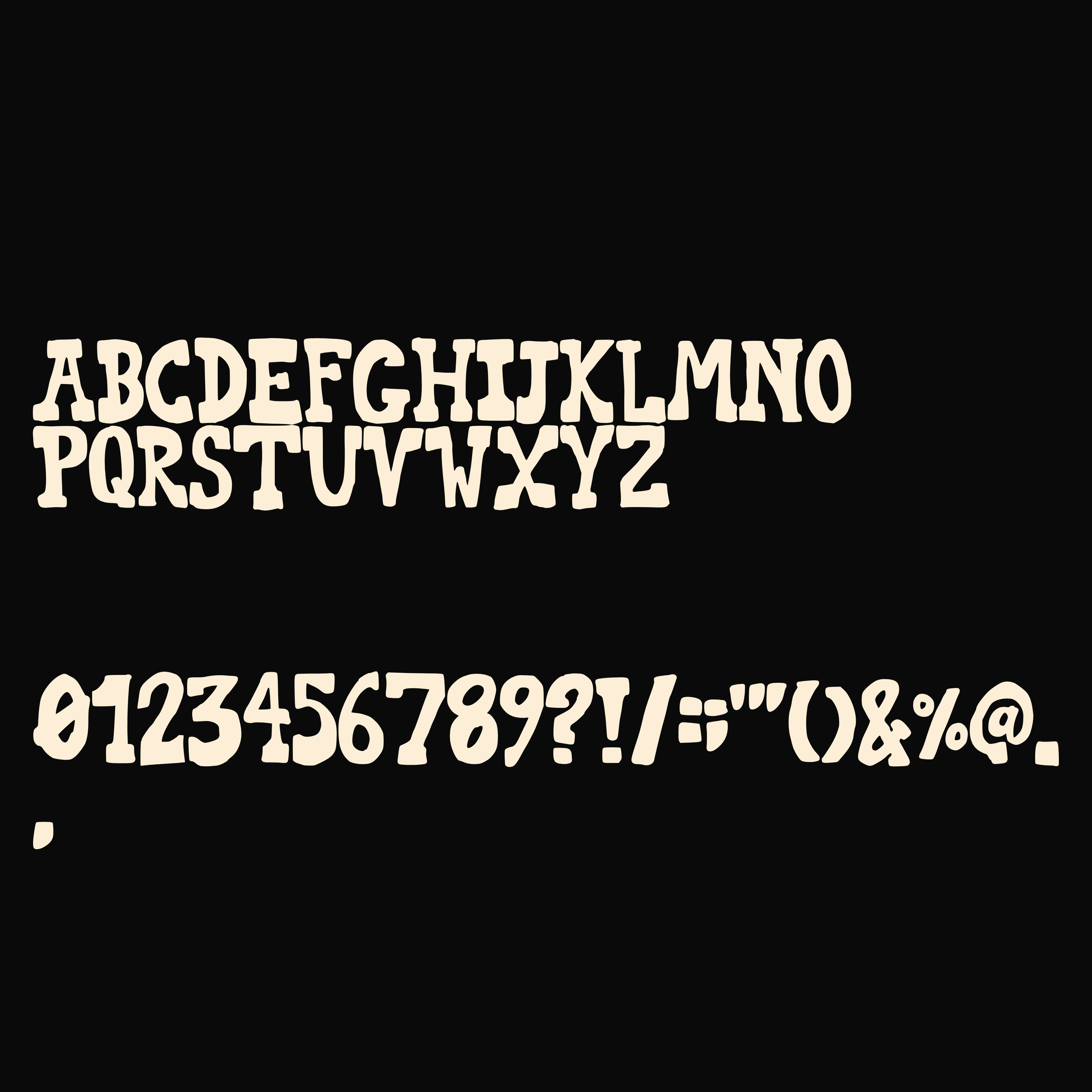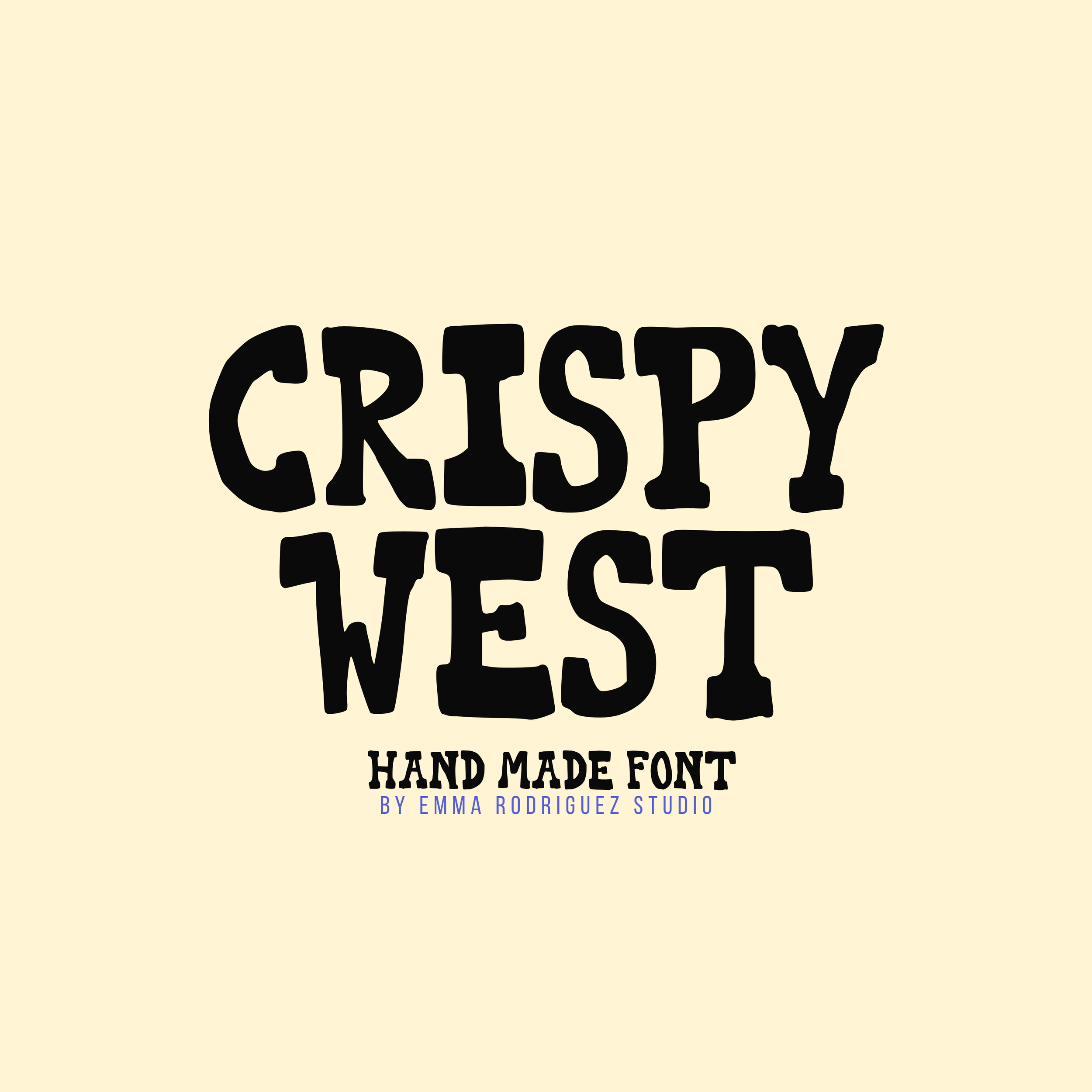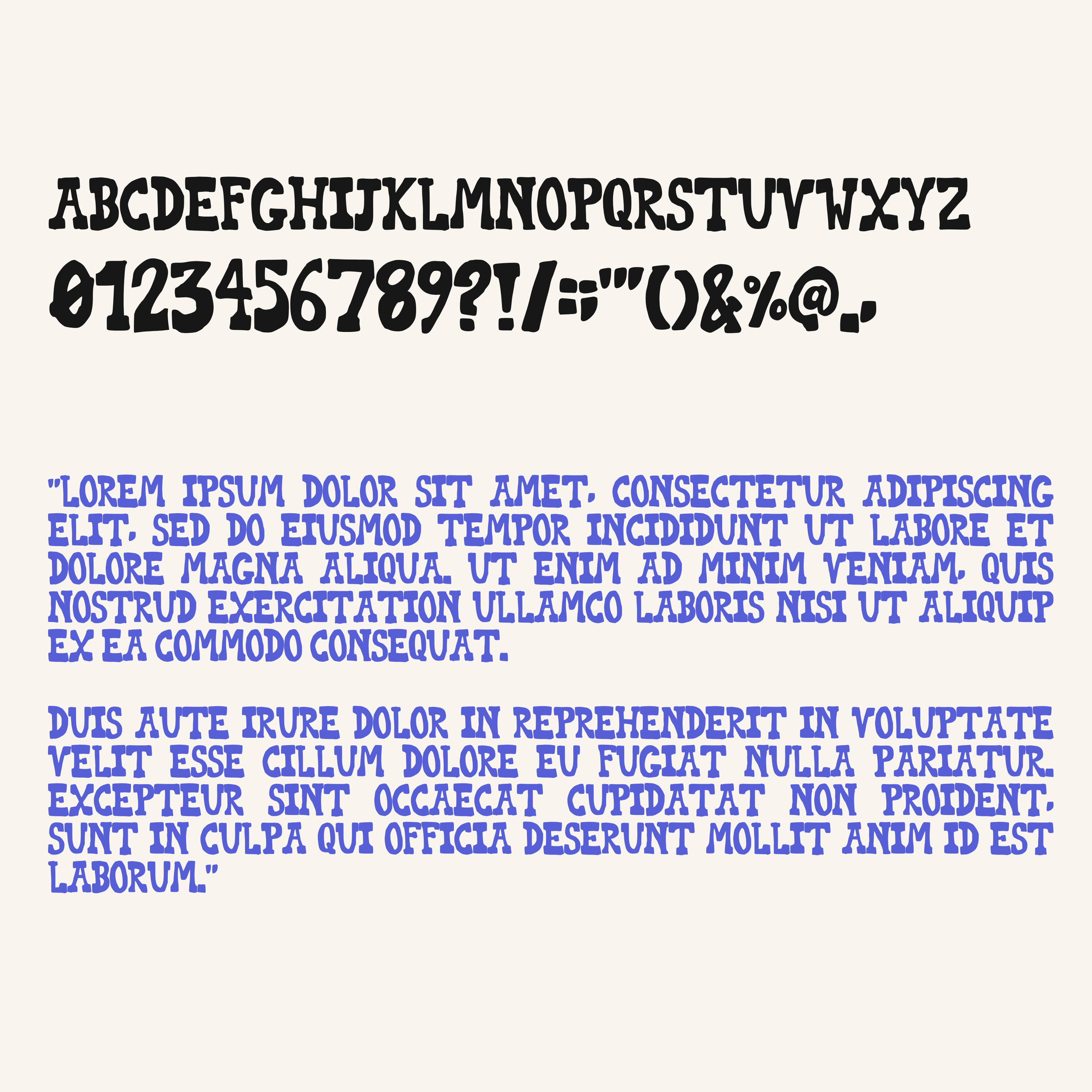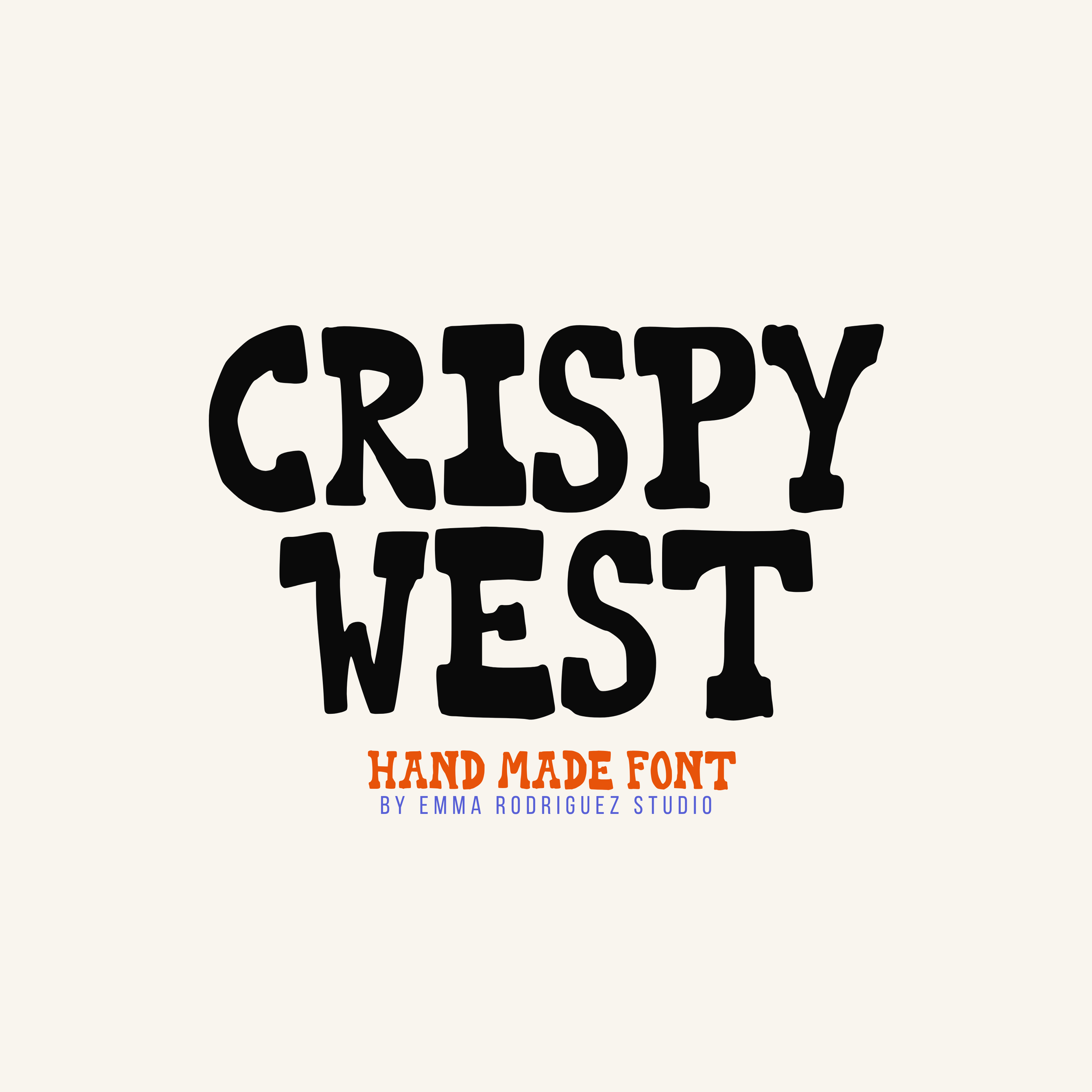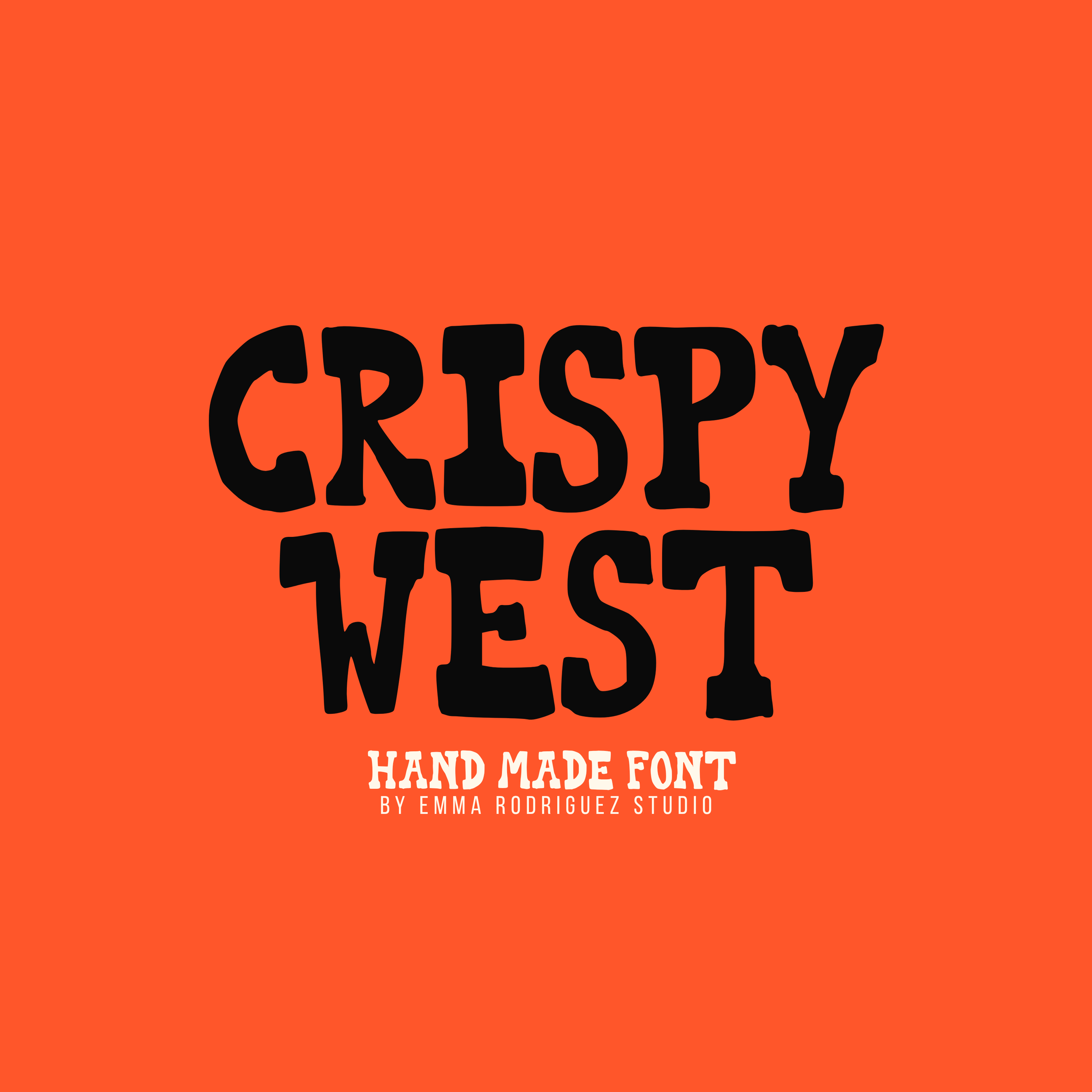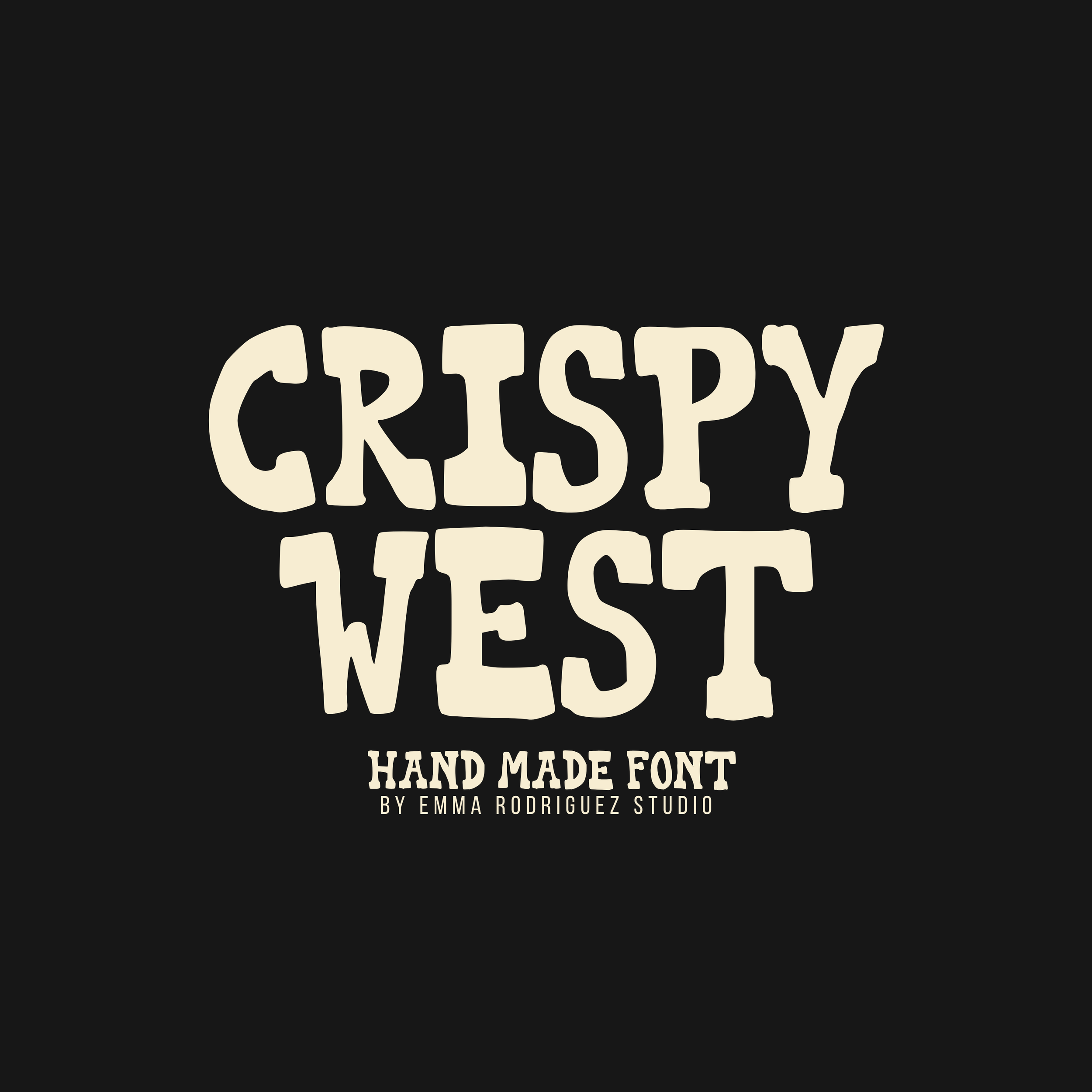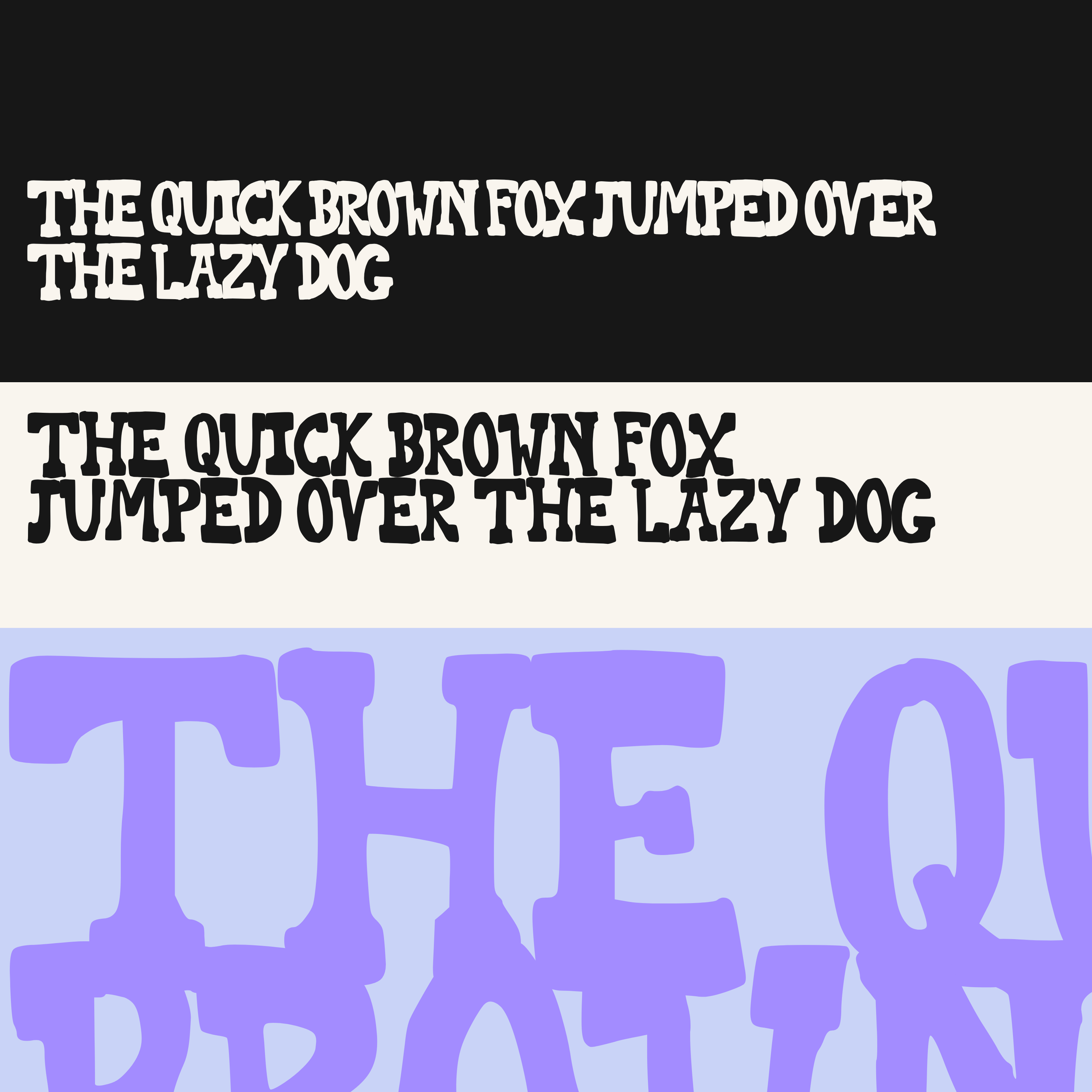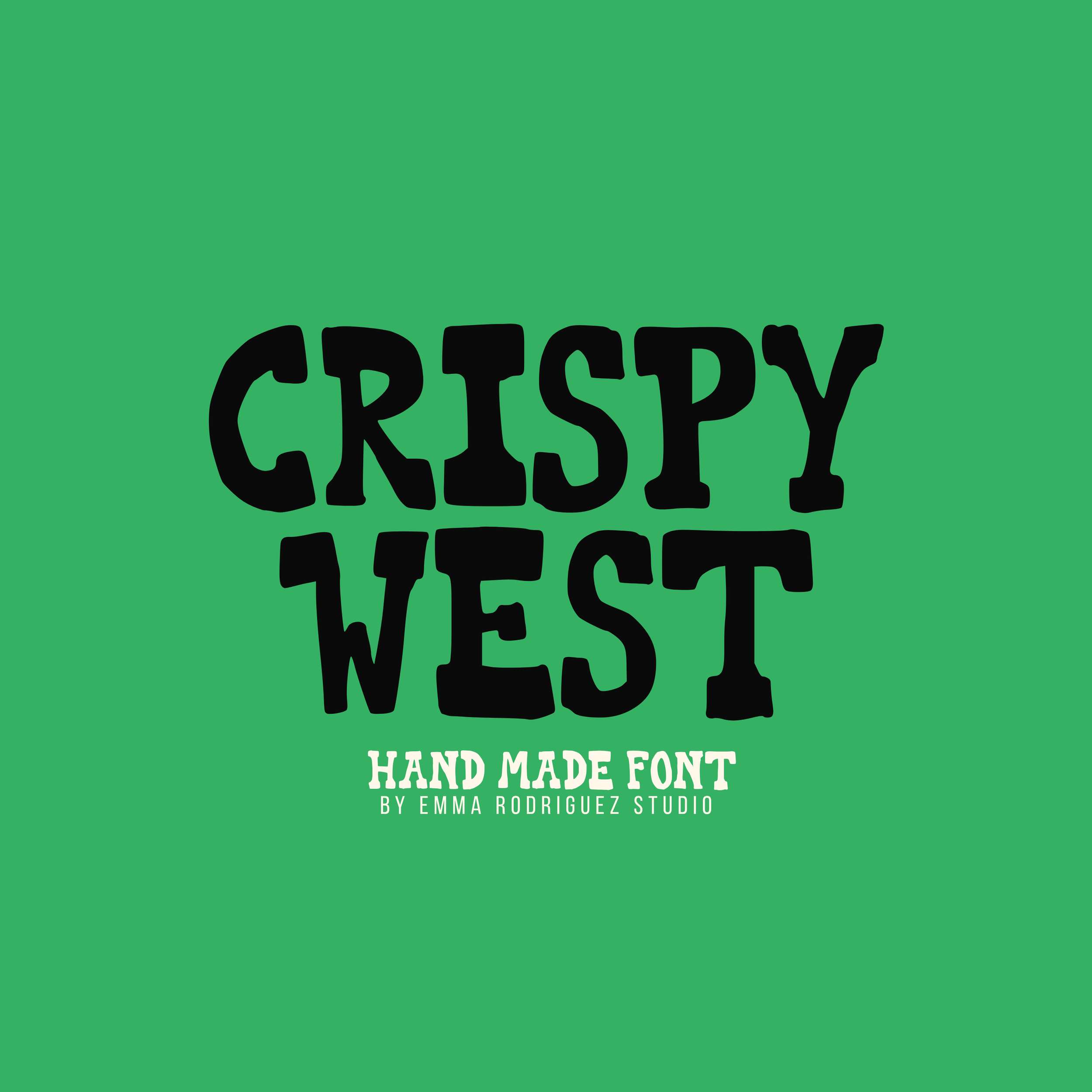
Crispy West Font - Western Bold Type
Crispy West is a gritty western display font inspired by vintage cowboy typography, worn signage and rough printed lettering. Its bold, chunky forms and distressed handmade character make it ideal for poster makers, branding designers, clothing brands and creatives looking for a western typeface that feels less polished and more authentic.
The irregular edges and rough finish are intentional, helping the font recreate the appearance of aged print, hand-painted signs and vintage Americana graphics.
• Uppercase letter set
• Numbers and basic punctuation
Please note that Crispy West contains uppercase letters only. A lowercase version is not included.